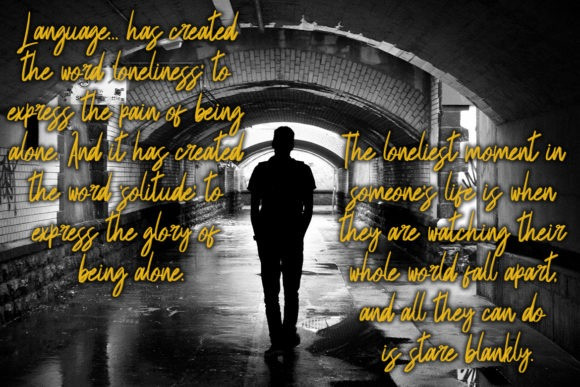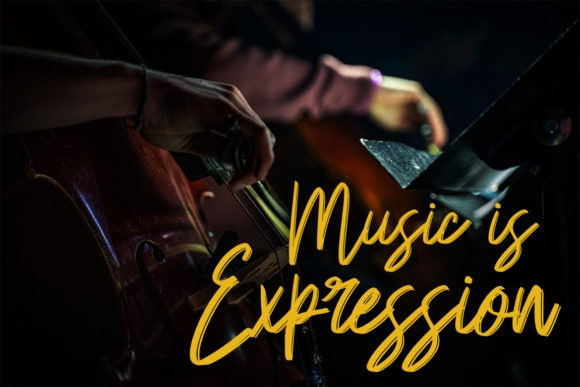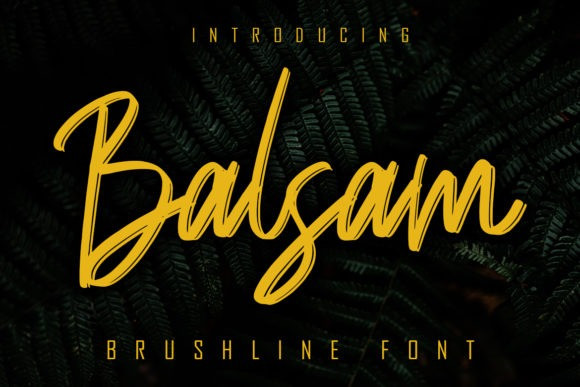
Balsam Brush Font
Balsam Brush Font is a relaxed and flowing handwritten font. It looks stunning on wedding invitations, thank you cards, quotes, greeting cards, logos, business cards and every other design which needs a handwritten touch. This font is PUA encoded which means you can access all of the glyphs and swashes with ease!